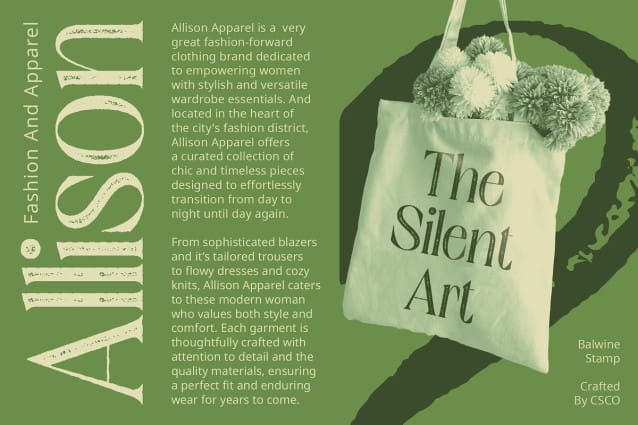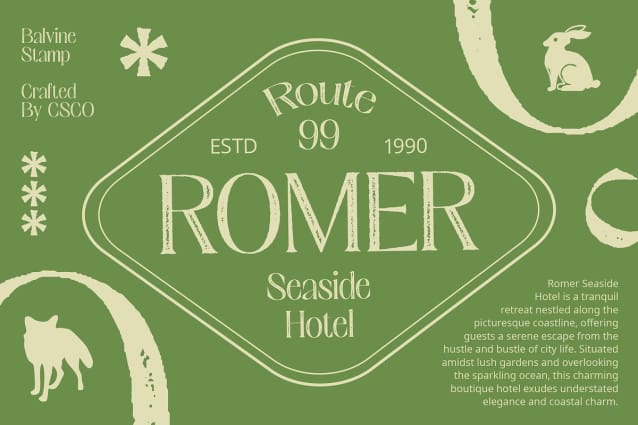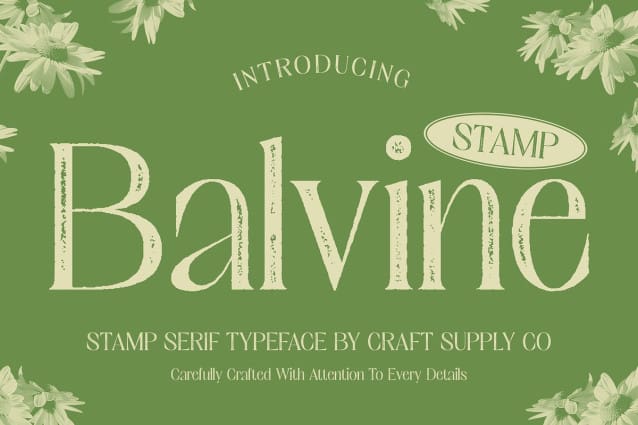
Balvine Stamp Font
Balvine Stamp Font: Making a Bold Statement. High Contrast Serif Design Balvine Stamp features a striking high-contrast serif design that commands attention. Its bold strokes and delicate serifs create a captivating visual impact, perfect for grabbing the audience’s attention.
Stamp Effect for Added Character The stamp effect applied to Balvine Stamp adds a unique touch of character to the font. It gives each letter a sense of authenticity and vintage charm, making it ideal for projects that require a distinctive display font.
Tailored for Display Purposes Designed specifically for display purposes, This font excels in various applications, including posters, headlines, and branding materials. Its bold and expressive appearance ensures that your message is conveyed with clarity and style.
Versatile and Impactful Beyond its primary use in display settings, This font offers versatility in its application. Whether used for editorial design, packaging, or digital platforms, its high-contrast serif design and stamp effect make a lasting impression.
Embracing Boldness and Authenticity This font stands out as a font that embraces boldness and authenticity. With its high-contrast serif design and unique stamp effect, it brings a distinctive flair to any display project, ensuring that your message is conveyed with impact and character.